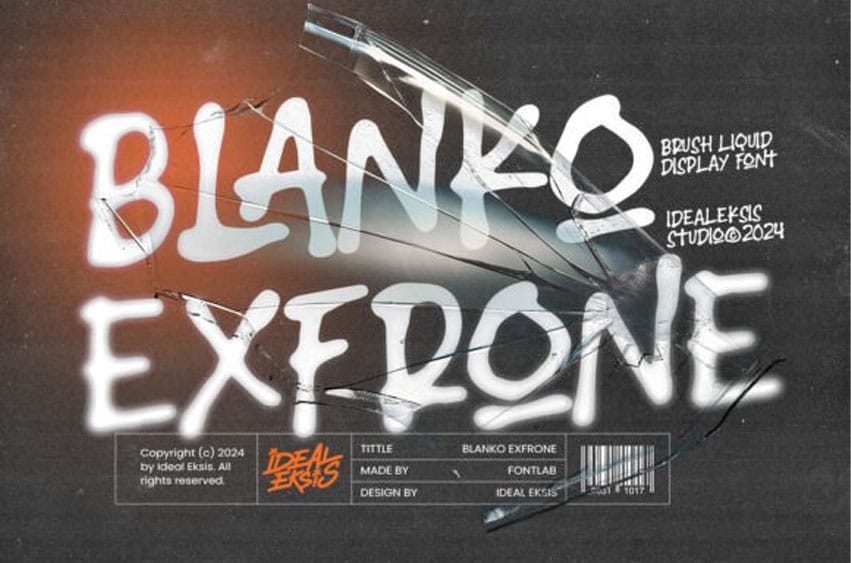
Blanko Exfrone Font Unleash your creative prowess with the ‘BlankoExfrone’ font that makes a striking statement in the realm of sports graphics and poster designs. Its unique versatility sets the tone for dynamic and impactful communication.
Artistically complex yet surprisingly versatile, BlankoExfrone provides a magnificent enhancement to all design projects, not just limited to sports. This font is a grand blend of sophistication and power, perfect for championing your creativity. Get ready, take the wheel, and transform your design odyssey with BlankoExfrone.